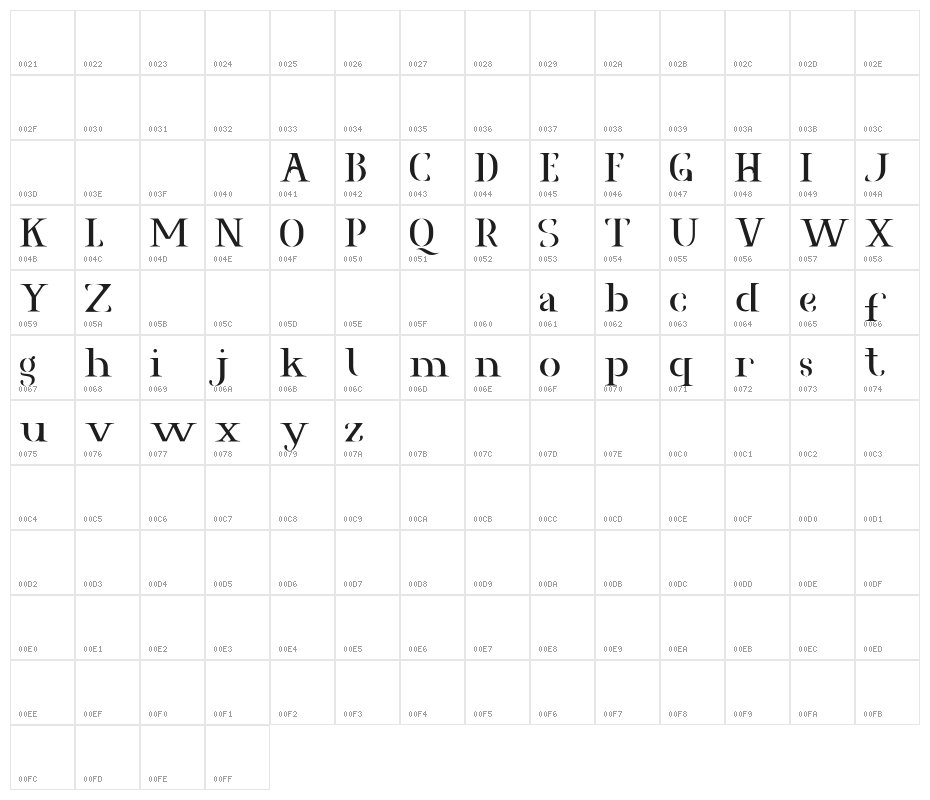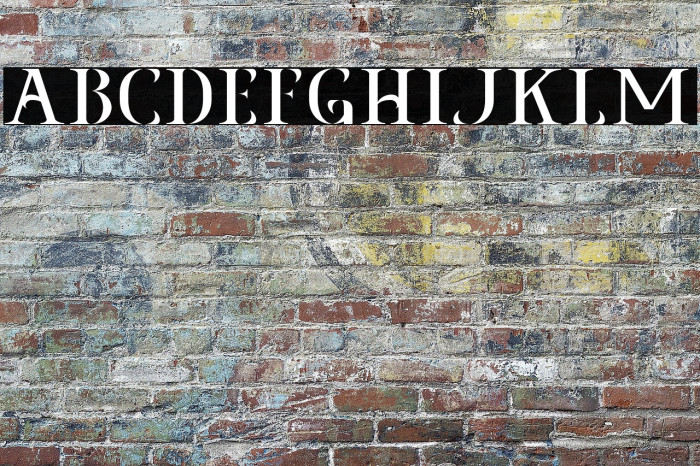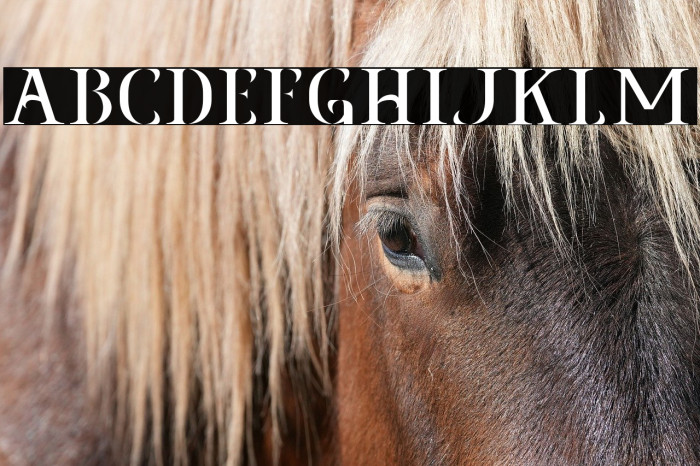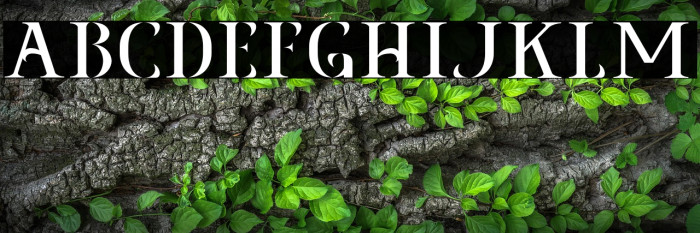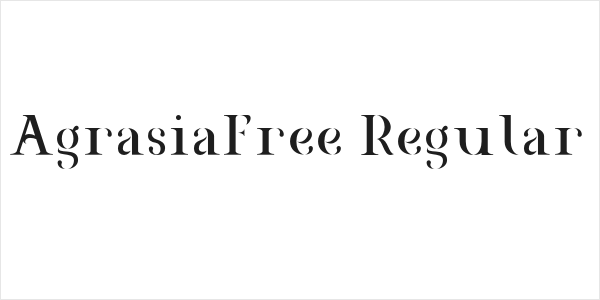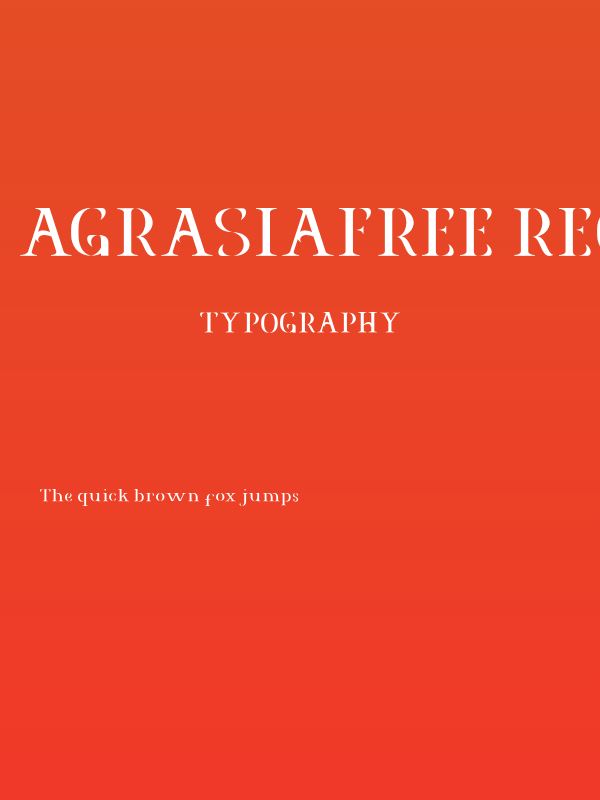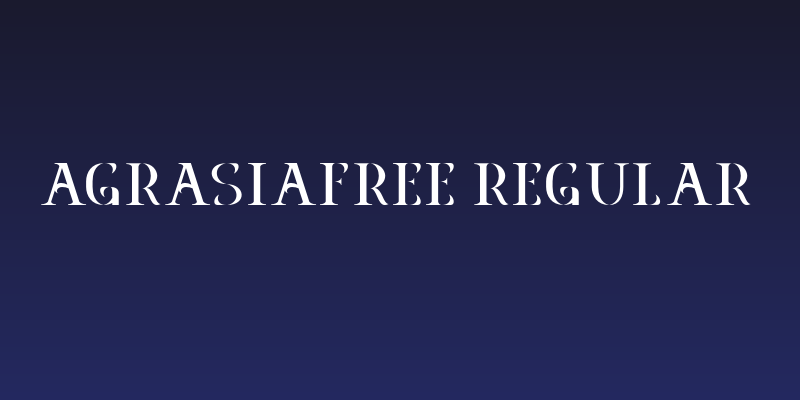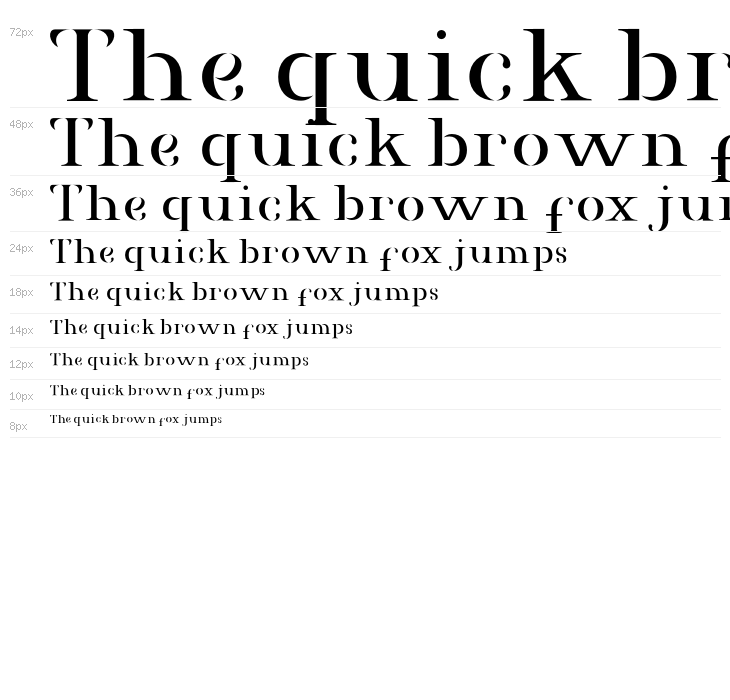
AgrasiaFree-Regular Font
AgrasiaFree-Regular Description
This font features a unique blend of classic serif elements with a modern twist. The uppercase letters are characterized by their bold, dramatic strokes and sharp serifs, giving them a strong, authoritative presence. The lowercase letters maintain a more delicate appearance, with elegant curves and subtle serifs that add a touch of sophistication. The overall design is balanced and harmonious, making it suitable for a variety of design projects. The numerals and special characters are crafted with the same attention to detail, ensuring consistency throughout the typeface.